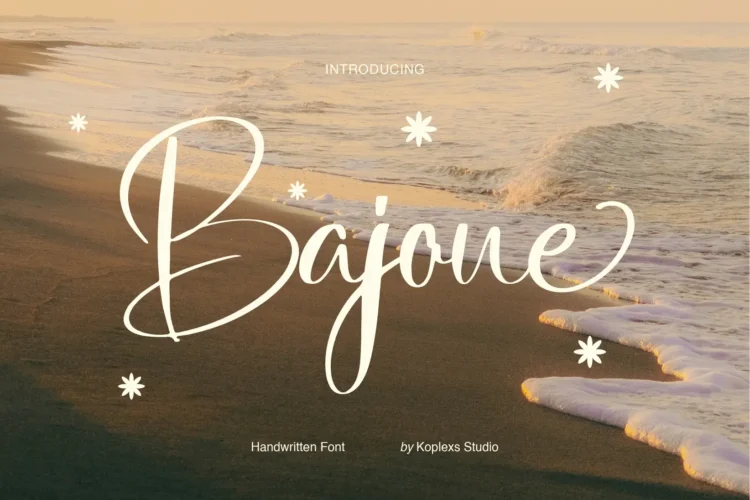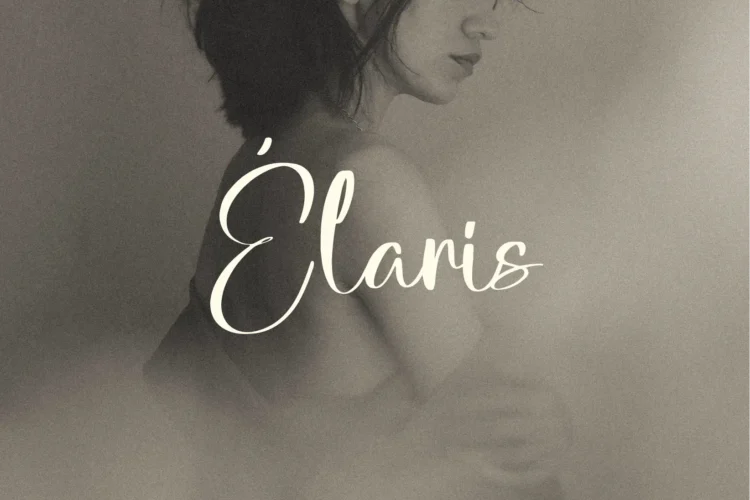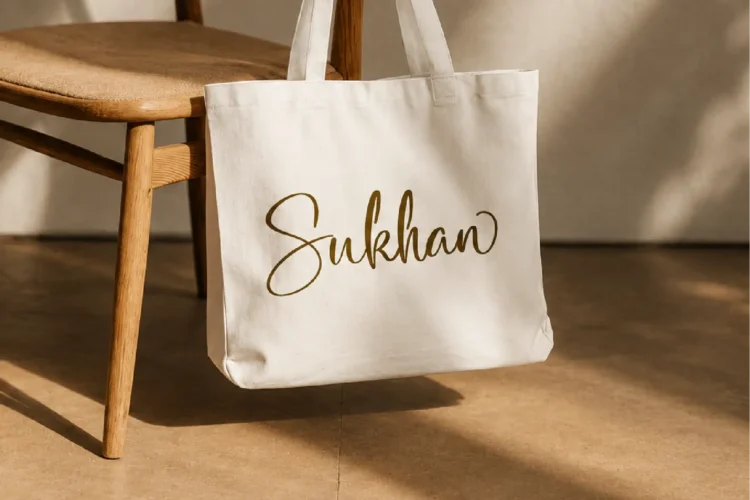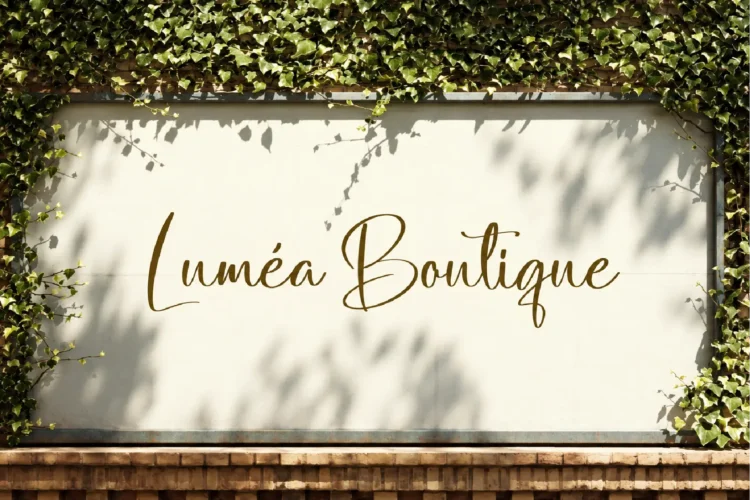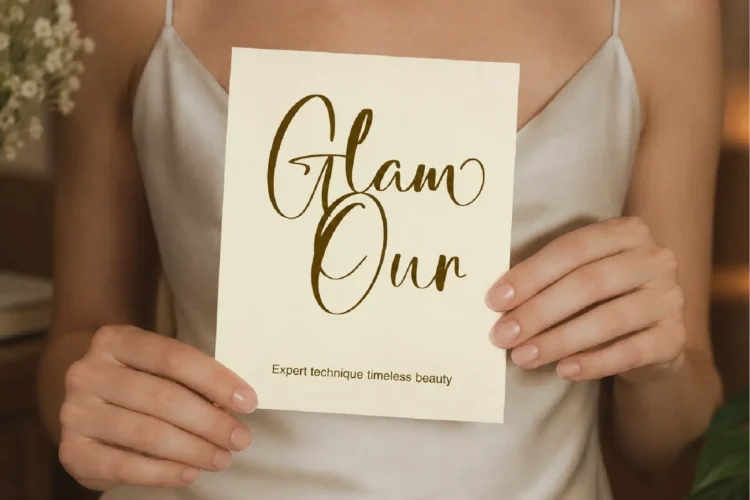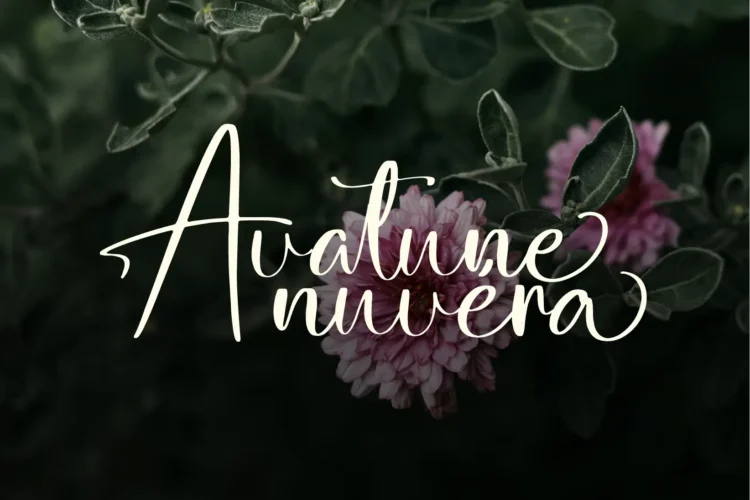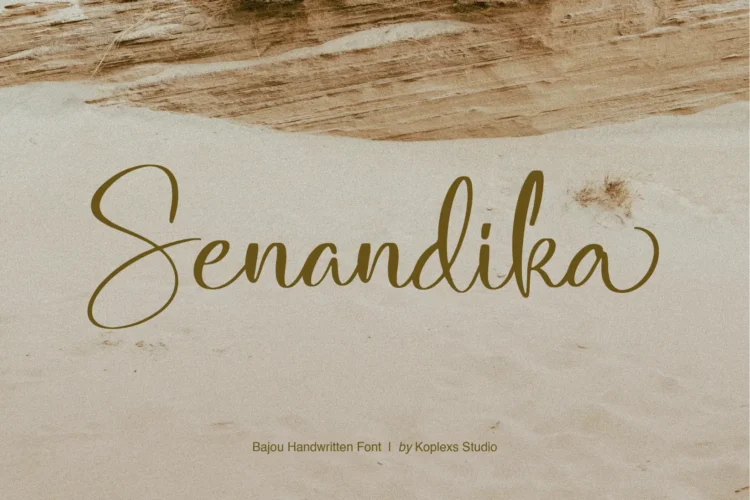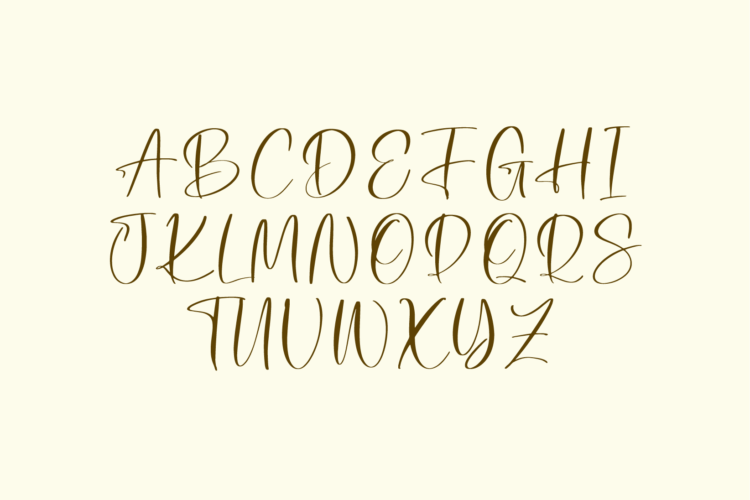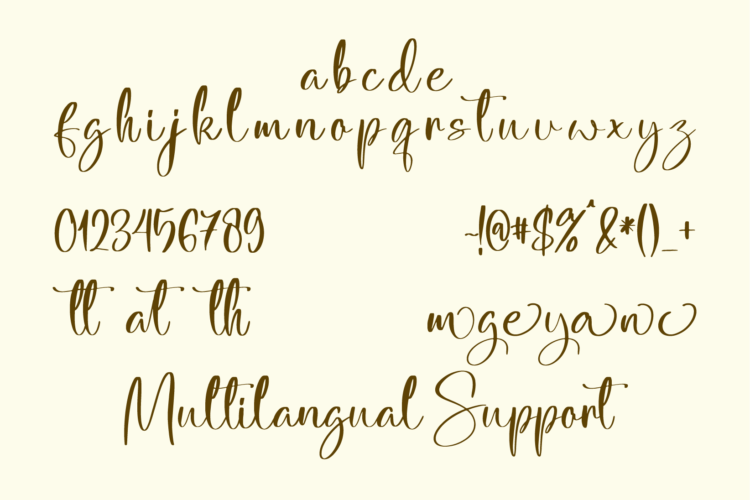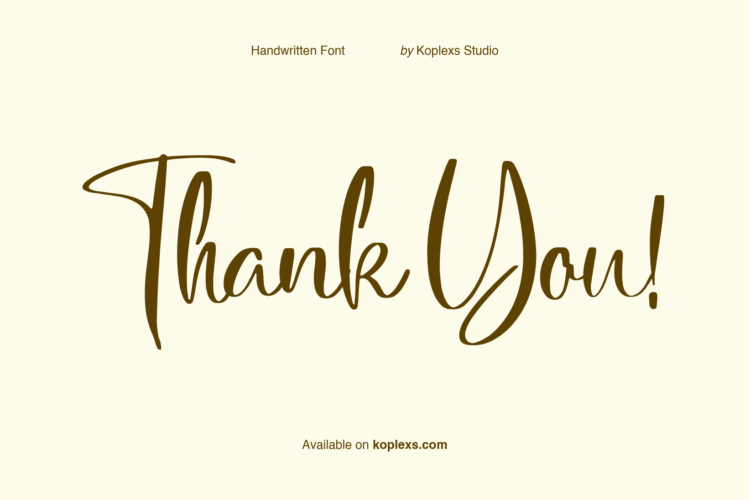
Bajoue Font: Elegant Handwritten Script for Branding
Bajoue Font is an elegant handwritten script by Koplexs Studio, made for designs that need a warm, personal feel. Its flowing lowercase letters, tall looping capitals, and contrast between fine strokes and fuller curves give words a relaxed, romantic rhythm.
A sweeping capital can turn a short brand name into a focal point, while curved ending swashes add a graceful finish. Bajoue feels at home on a boutique sign, a beauty label, or a thoughtfully designed invitation.
Perfect For These Design Styles
- Boutique, fashion, and beauty logos
- Wedding invitations, place cards, and thank you notes
- Skincare labels and gift packaging
- Tote bags and other merchandise designs
- Photography branding and portfolio titles
- Social media graphics and short editorial headlines
Let Bajoue lead with a name or a short phrase, and leave enough space around its loops and flourishes. Pair it with simple supporting text to keep your layout balanced.